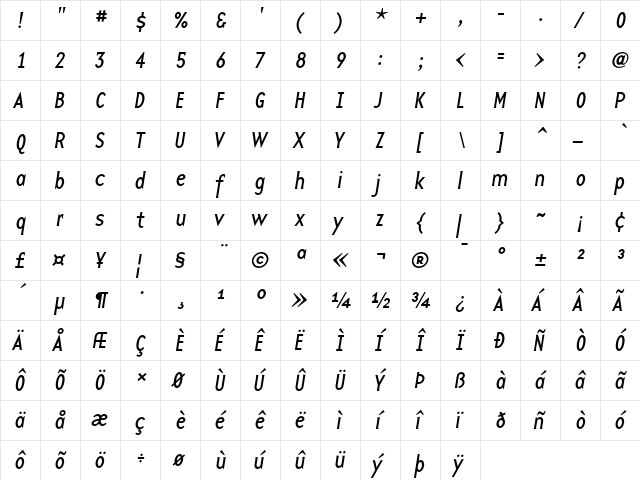
BaseTwelveSansI Roman Font Preview
BaseTwelveSansI Roman
BaseTwelveSansI Roman Font Details
Design Context for BaseTwelveSansI Typeface
BaseTwelveSansI takes a measured approach to typography — its balanced proportions and neutral character make it a reliable workhorse for both digital and print work.